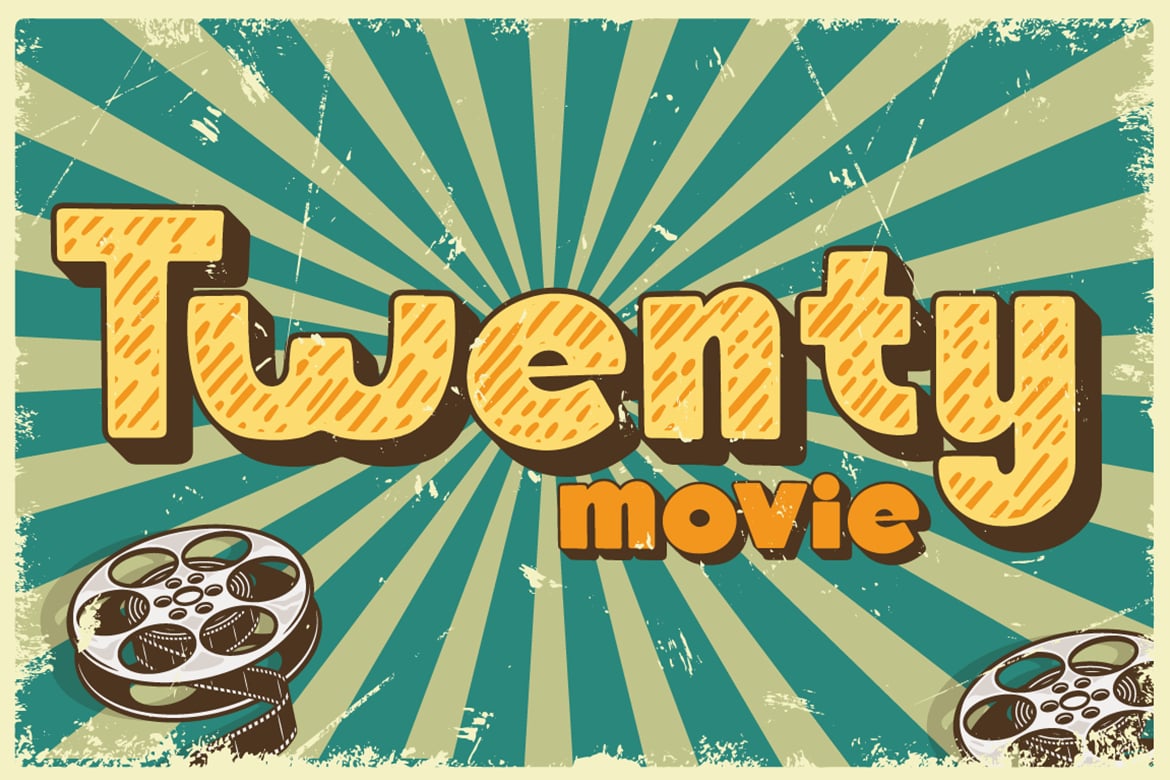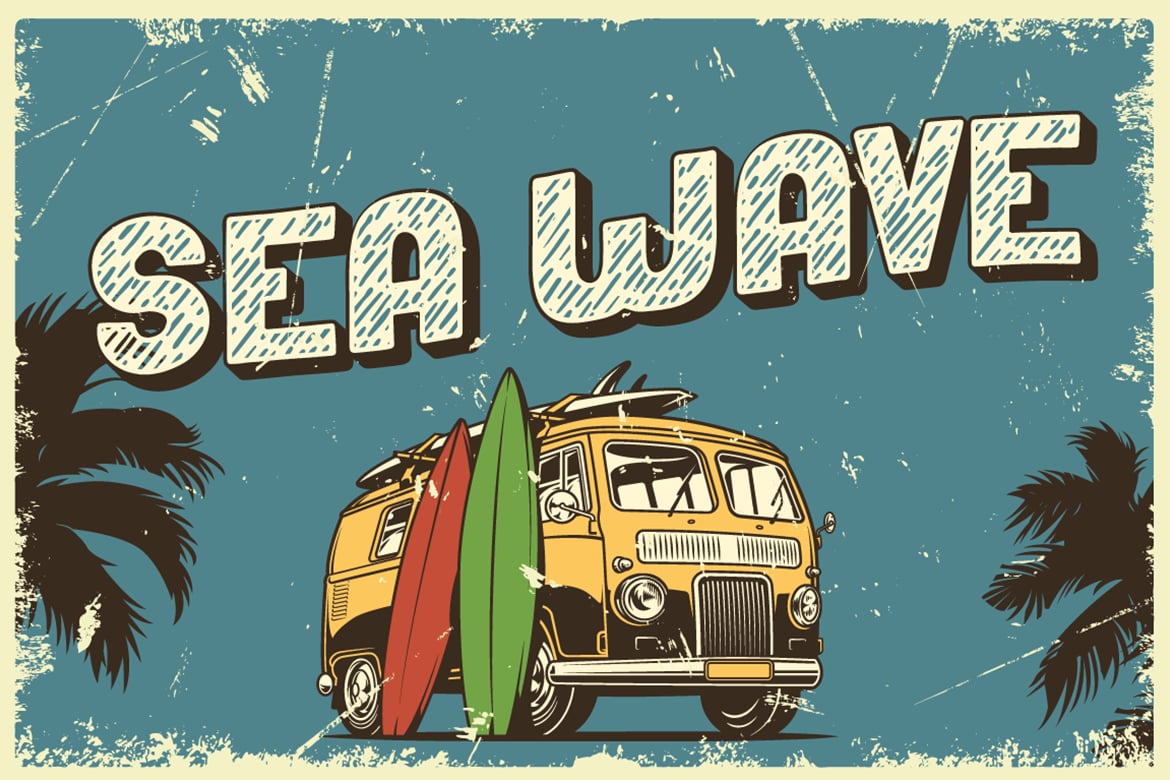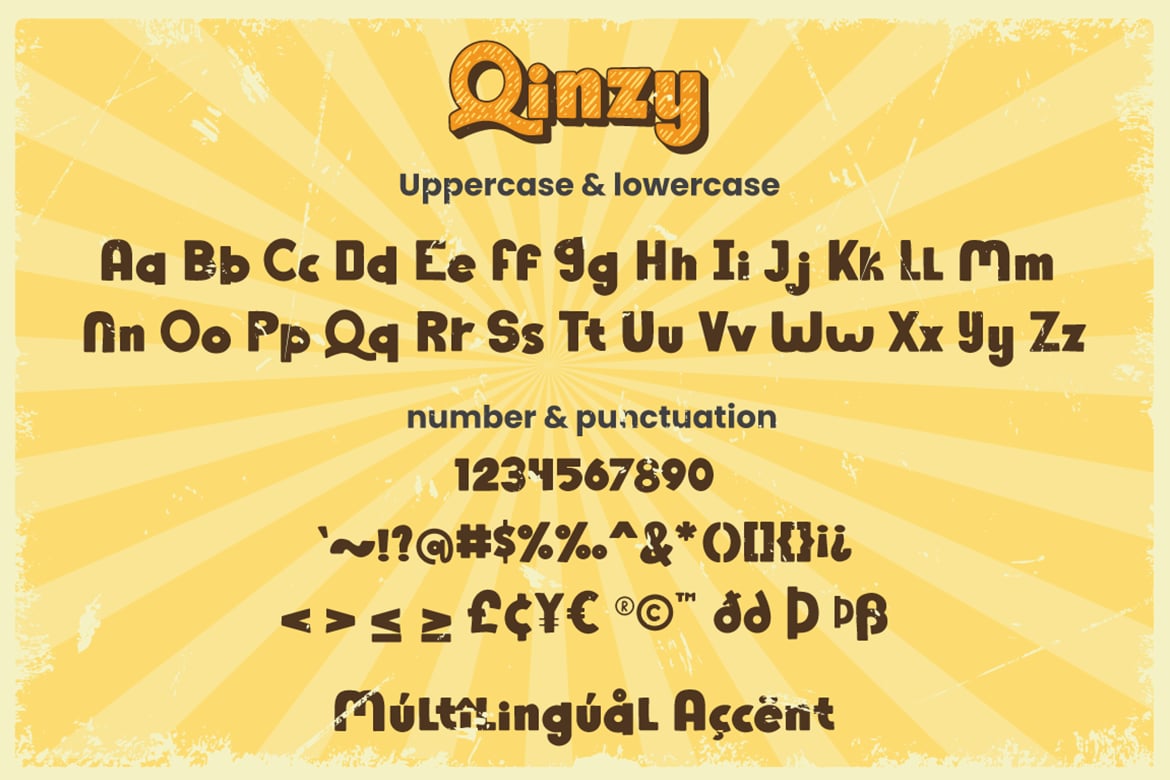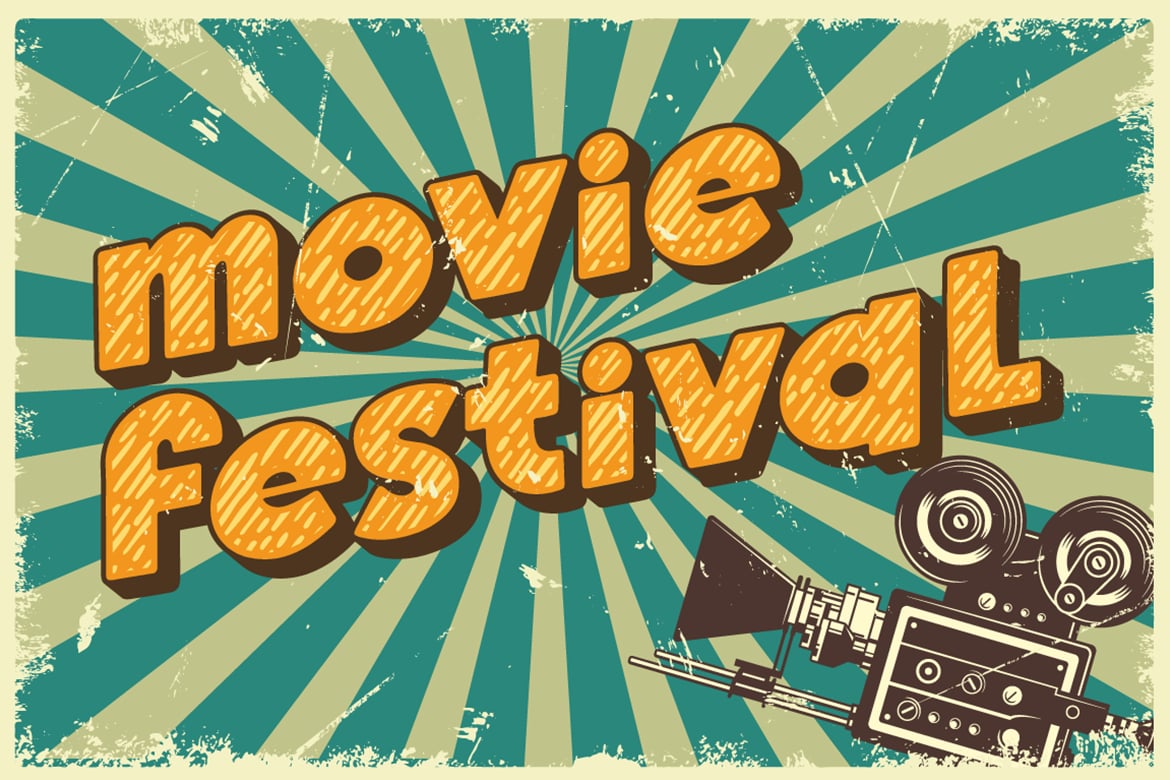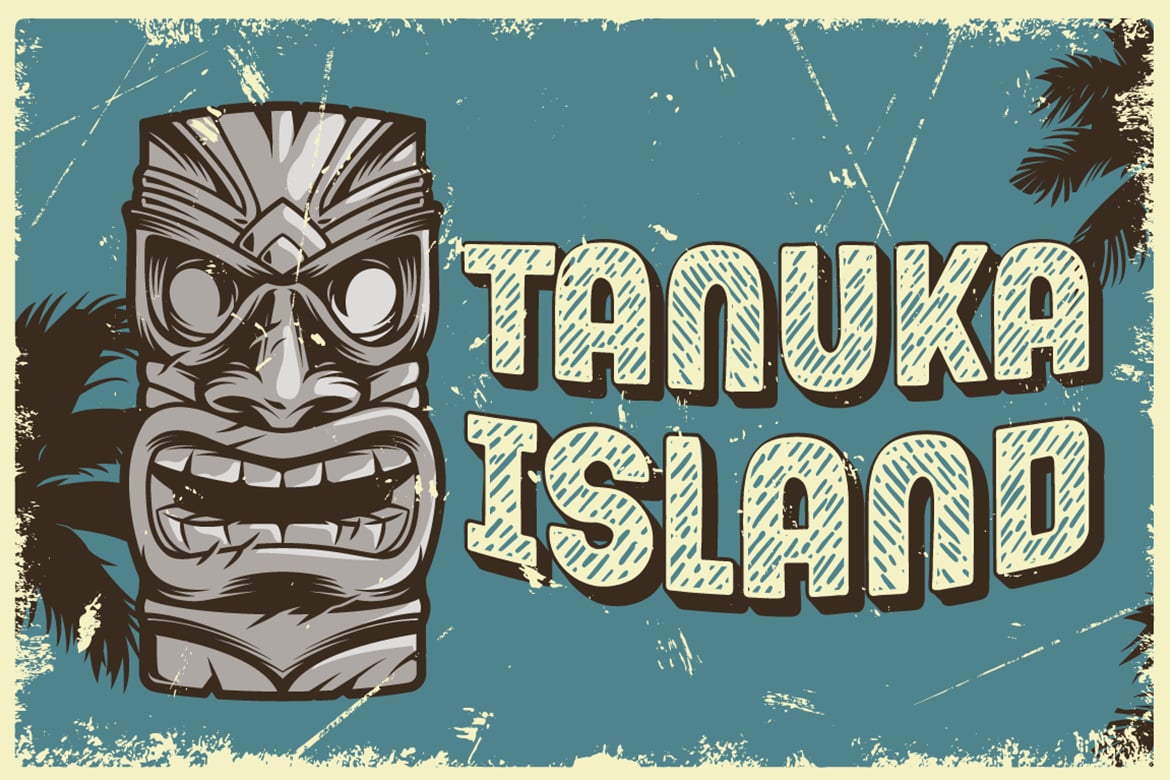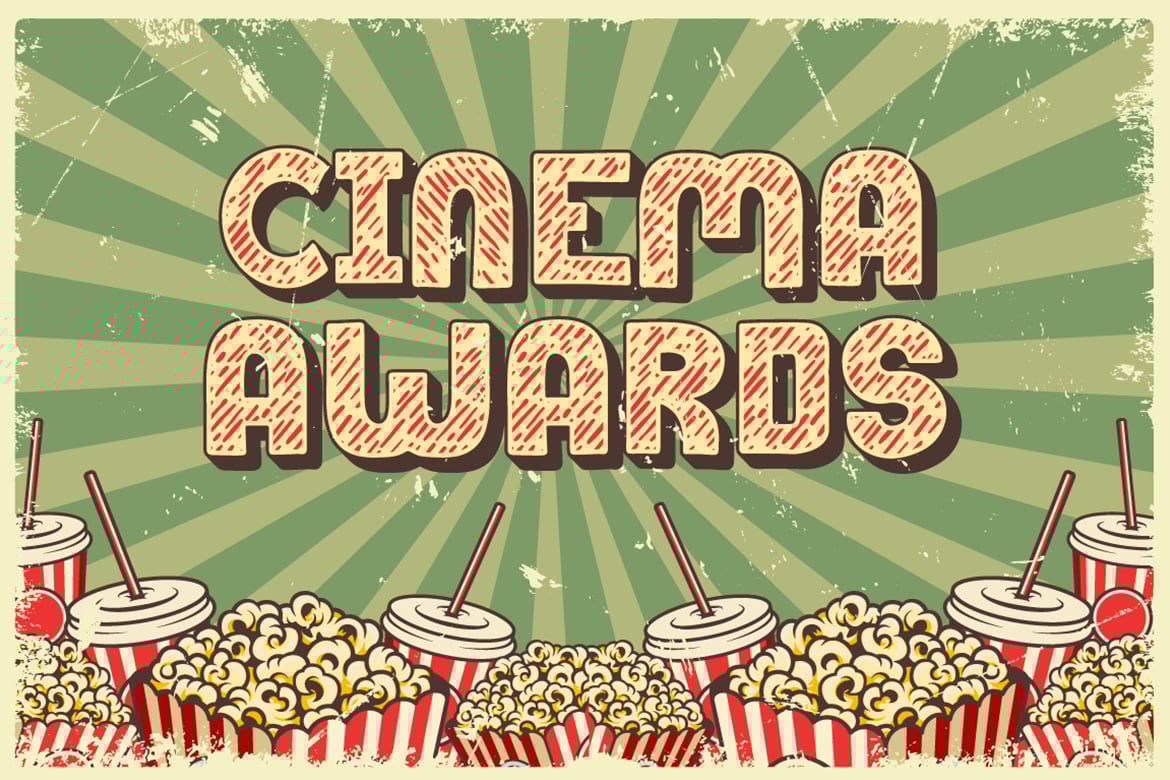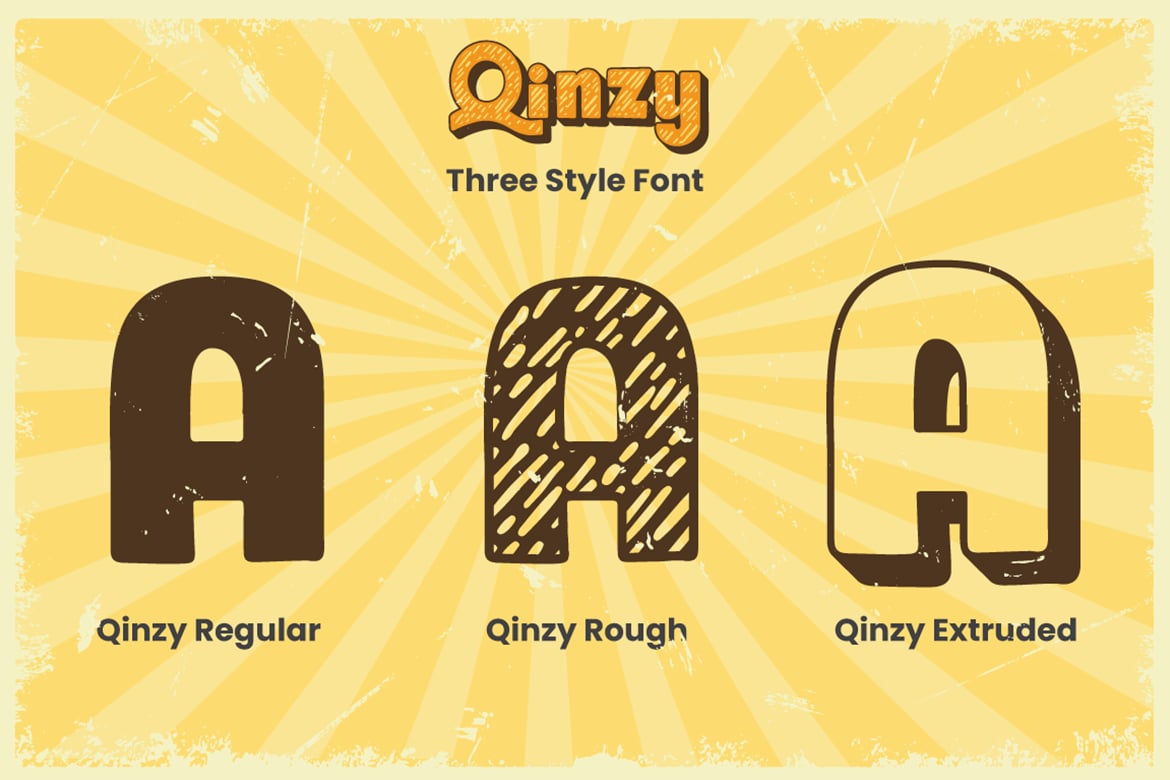
Qinzy – Vintage Font
Introducing Qinzy – Inspired by typeface on 70s era, Qinzy has the vintage font & retro font style.
with 3 font style, It’s super easy to use 3D effect wint Qinzy family font.
Three style Font: Handwritten, texture & Extrude
Qinzy is perfect for children product, branding, logo, invitation, stationery, product packaging, merchandise, monogram,
blog design, game titles, cute style design, Book/Cover Title and more.